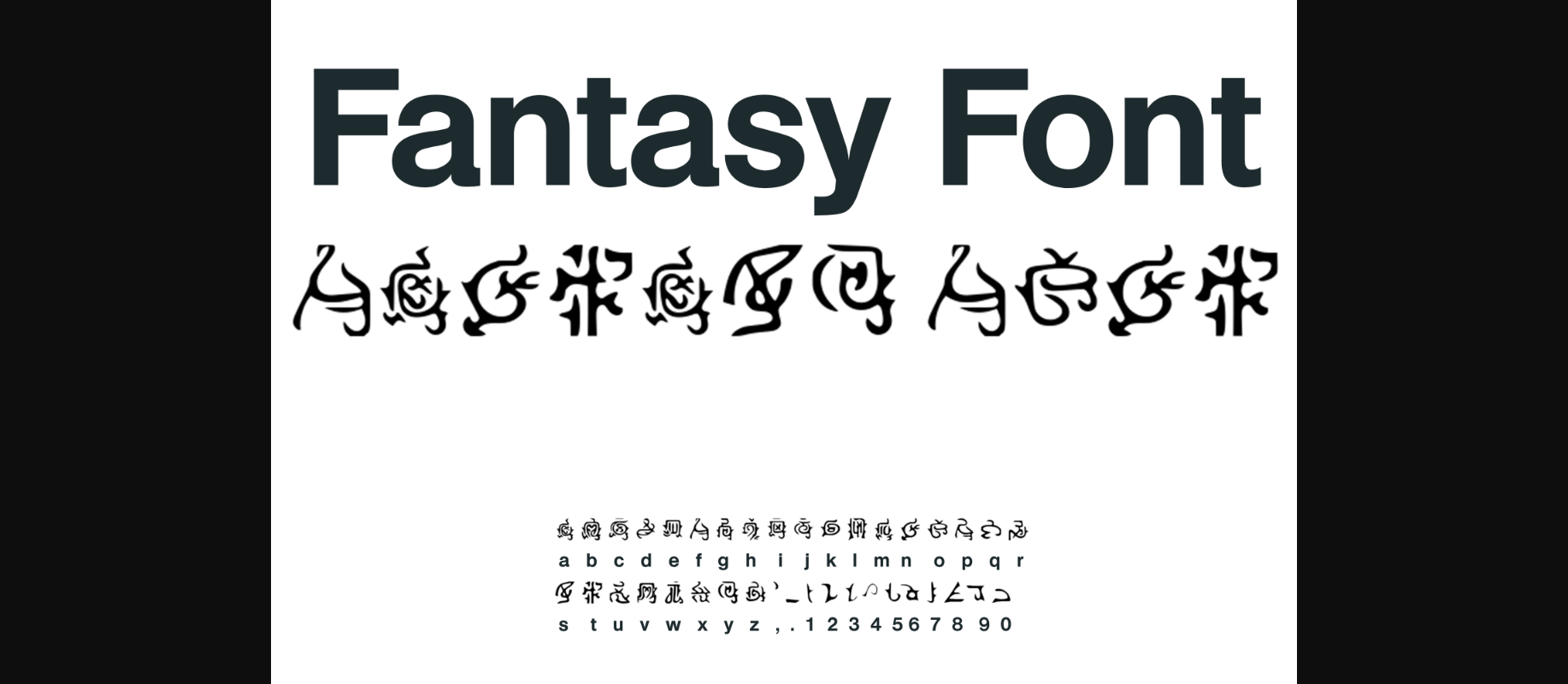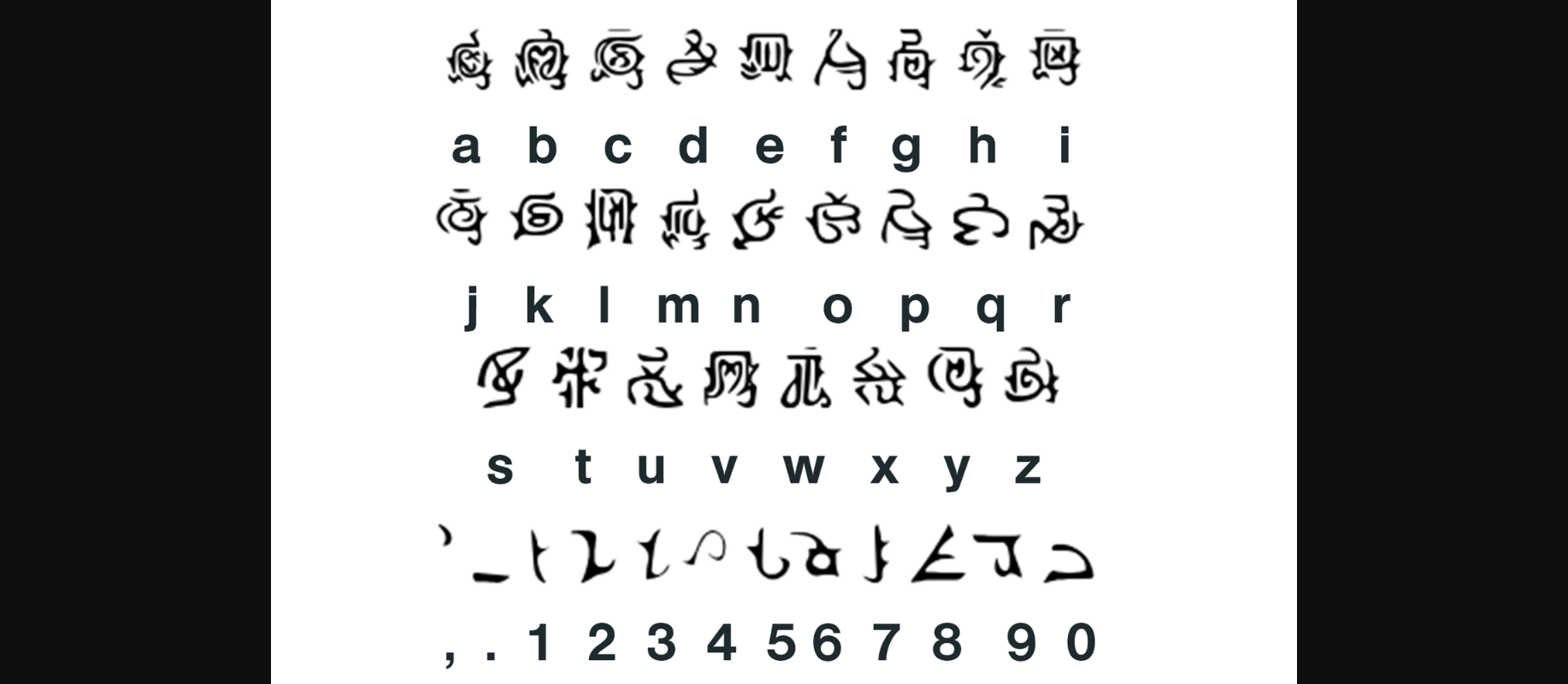
Fantasy is perfect for your next Dungeons and Dragons campaign, fantasy LARP adventure, novel, or whatever else you’re working on! This font includes the standard English alphabet, numbers, commas, and periods.